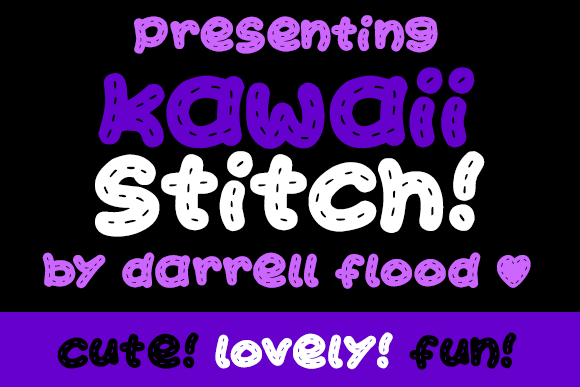
Introduction to Kawaii Stitch Font
Kawaii Stitch is a cute, hand crafted font in a soft, patchwork style.
Kawaii Stitch is a display font that is perfect for handicraft themes Font created by Darrell Flood.
Key Features of Kawaii Stitch Font